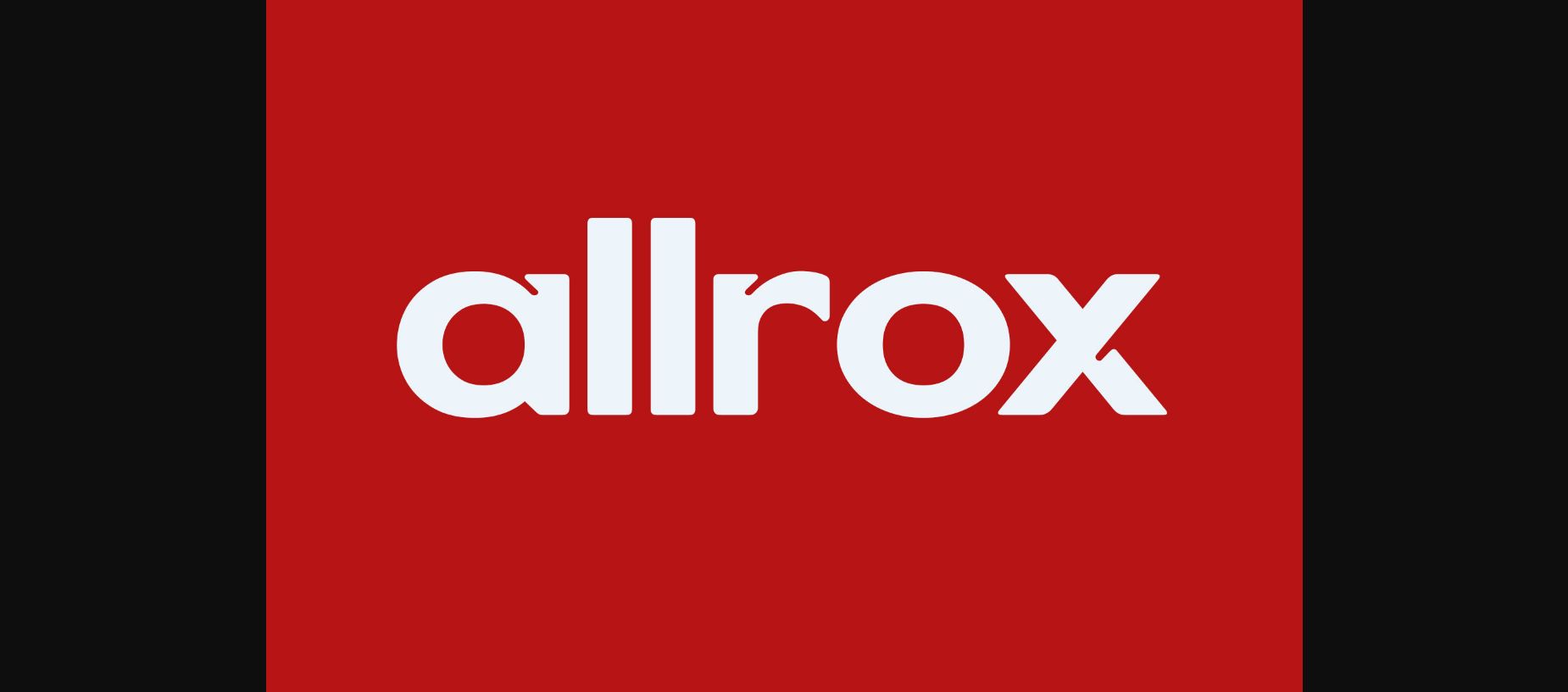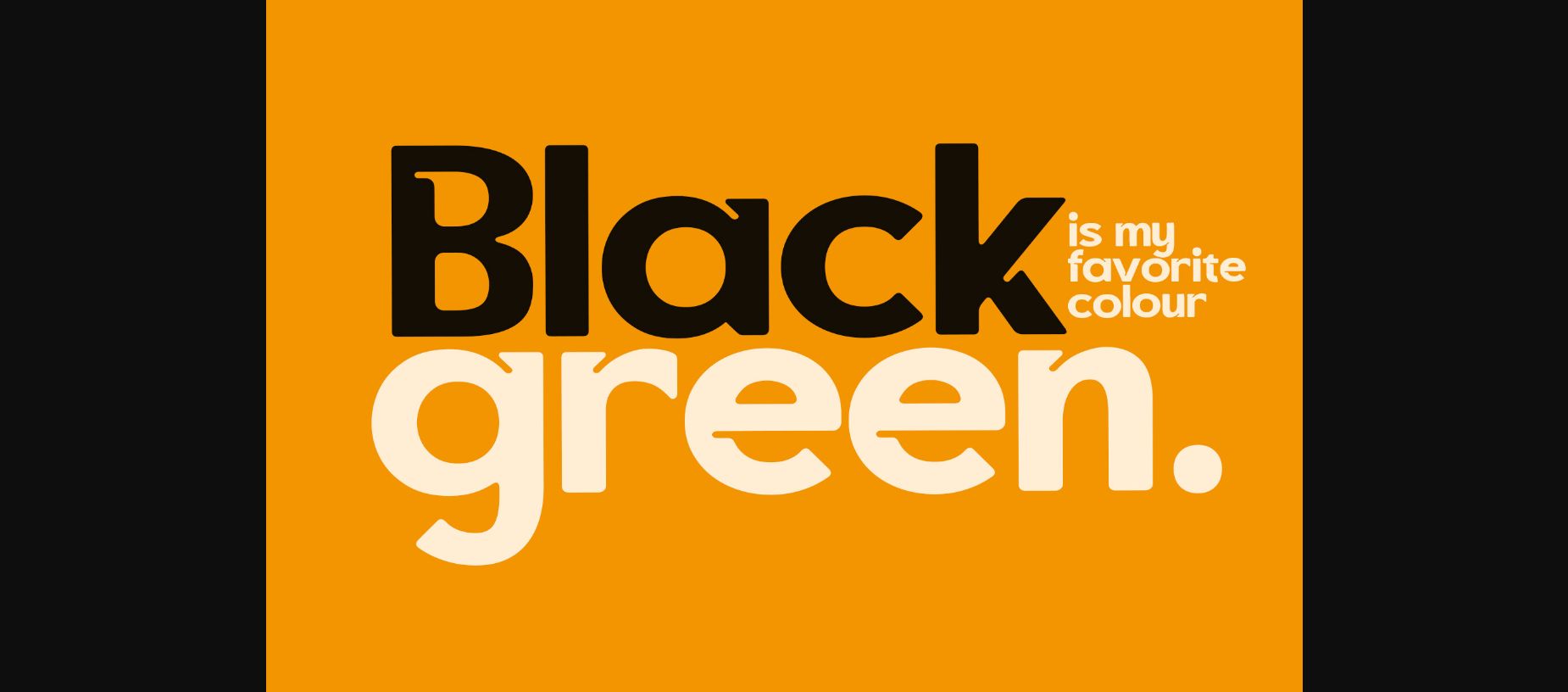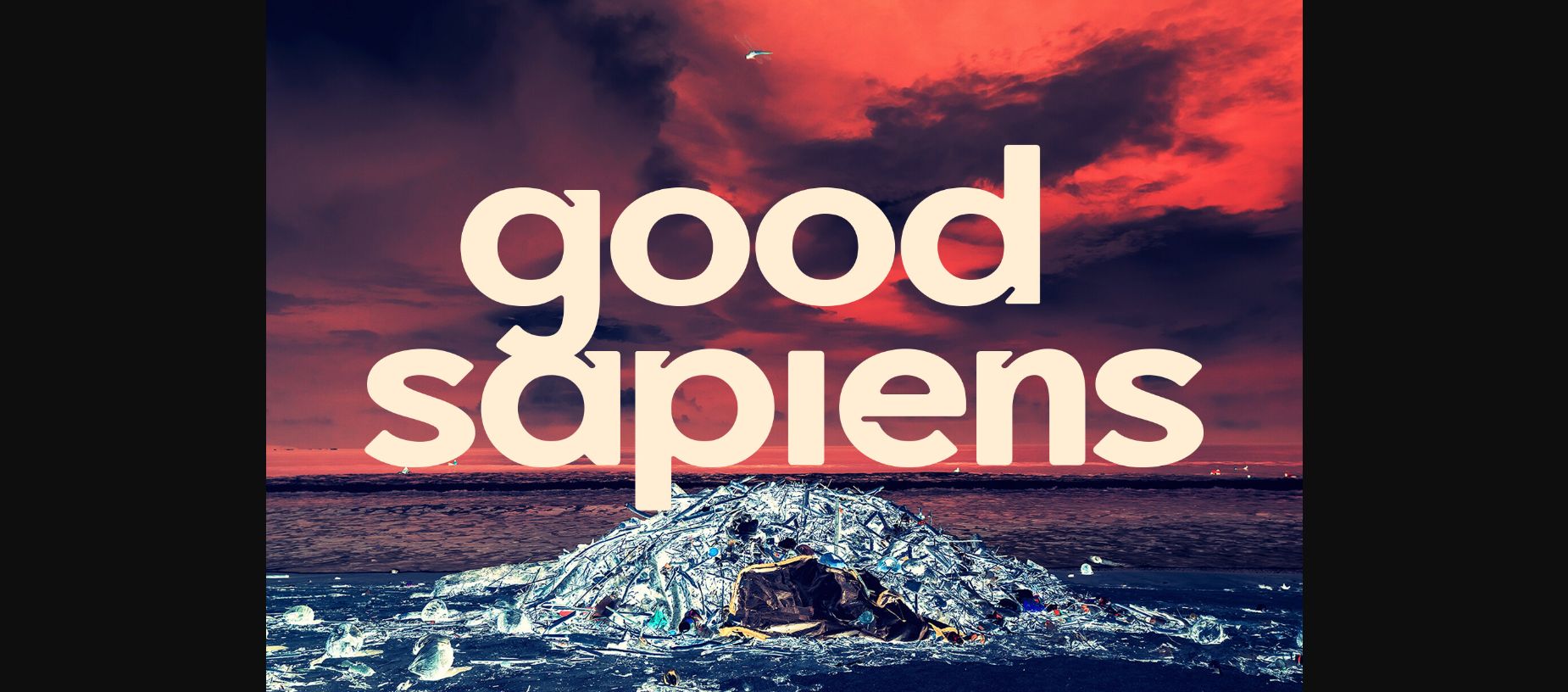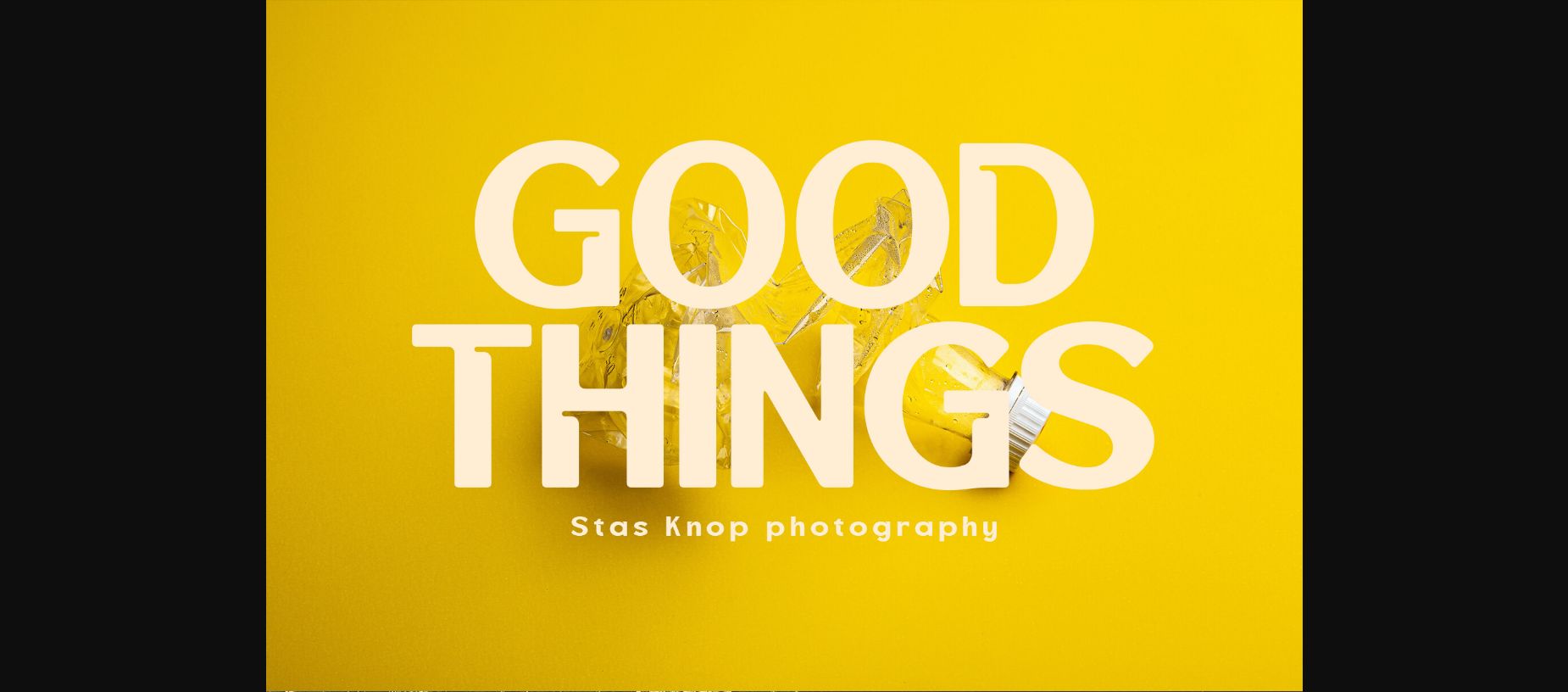
About Allrox Font
Allrox is a lovely and timeless sans serif font. It is the best choice for creating eye catching logos, branding and quotes. Every letter has a unique and beautiful touch, which will make your design come alive!